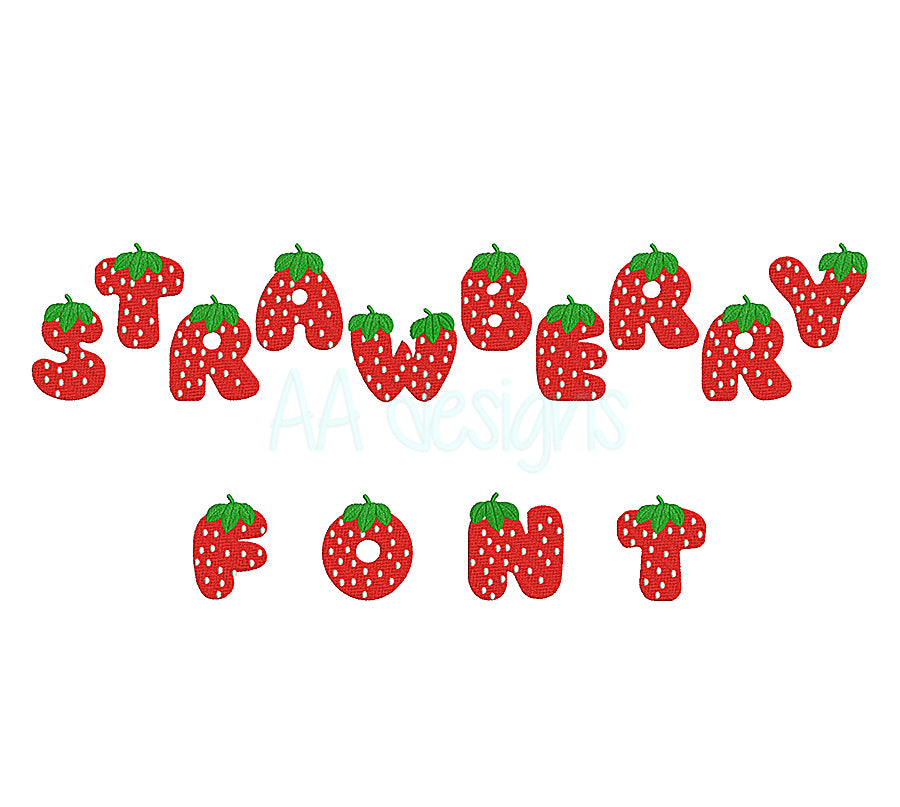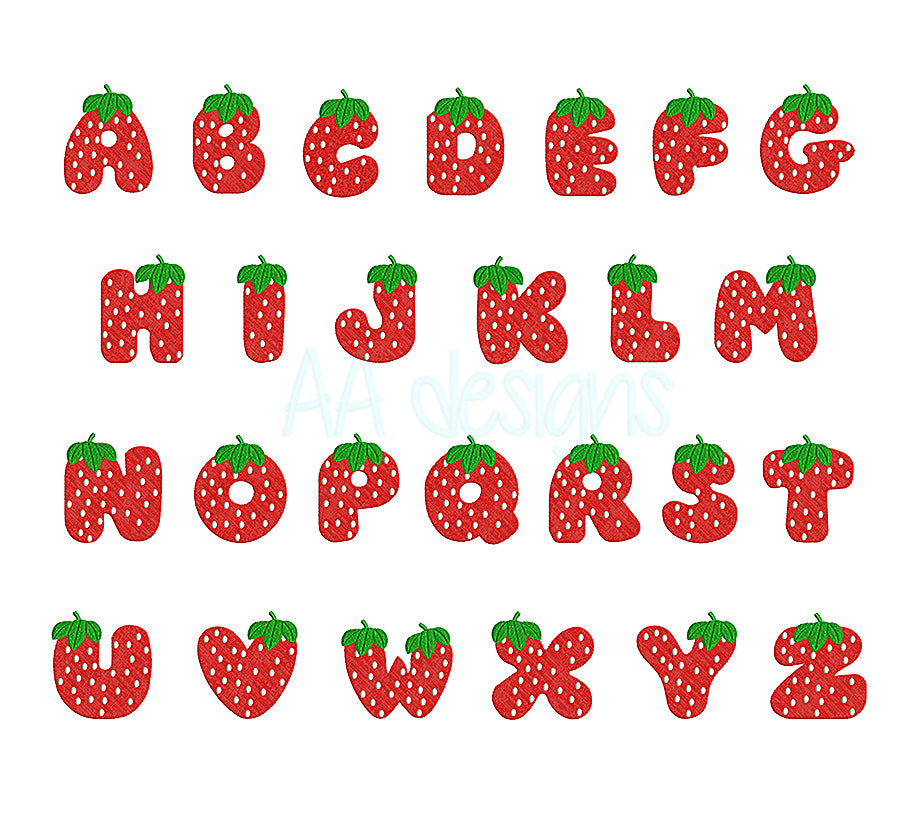
Strawberry embroidery font. Machine embroidery alphabet with cute strawberry. BX PES DST files
Strawberry embroidery font
This font comes with letters in 3 sizes, A-Z (Upper case)